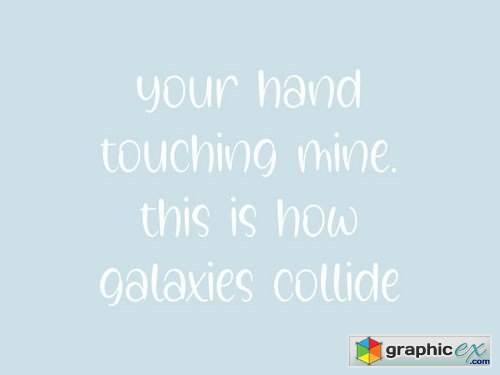
Galaxy Sprinkle YH - Modern Script Font
Galaxy Sprinkle is a Beautiful Handcraft Font.
Galaxy Sprinkle is perfect for product packaging, branding project, magazine, social media, wedding, or just used to express words above the background.